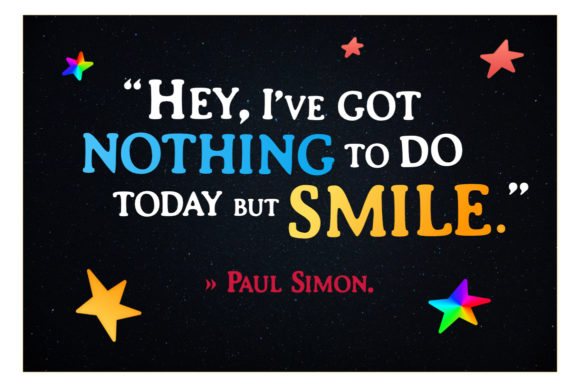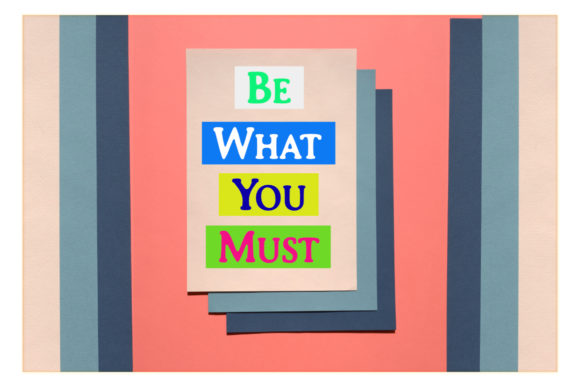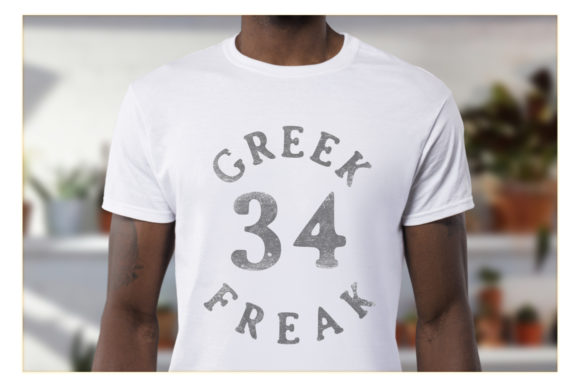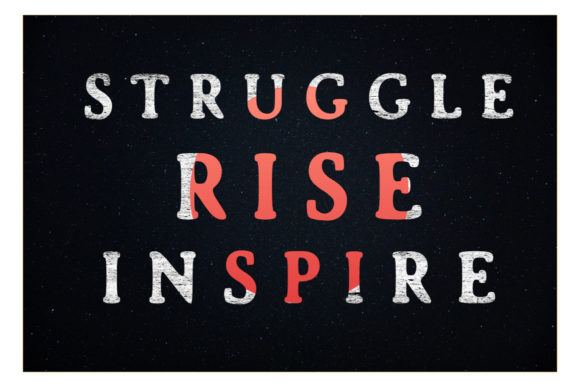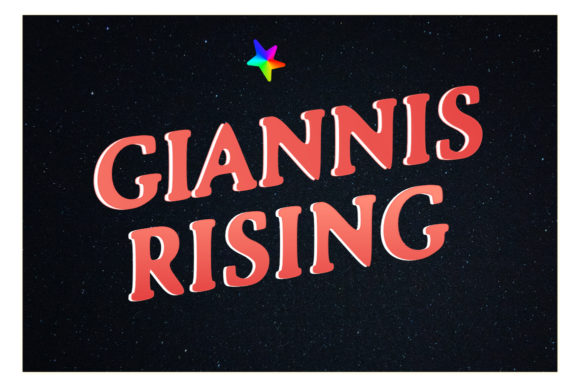
Introducing Giannis Rising Font: Elevate Your Designs with a Touch of Sophistication
In the world of typography, a font can make or break a design. It’s the foundation upon which creativity is built, and the right choice can elevate a project from ordinary to extraordinary. For designers and crafters looking to add a dash of elegance and versatility to their work, the Giannis Rising Font is an excellent choice. This all-caps, casual, and versatile serif font is designed to make a statement, and in this article, we’ll explore its features, benefits, and uses.
What is Giannis Rising Font?
The Giannis Rising Font is a thoughtfully crafted serif font that exudes a sense of sophistication and style. It comes in two sleek styles: regular and italic, providing users with flexibility and creative freedom. The font’s design is characterized by its clean lines, classic serifs, and a distinctive charm that sets it apart from more traditional fonts.
Key Features of Giannis Rising Font
- All-Caps Design: The Giannis Rising Font is an all-caps font, making it perfect for headings, titles, and any design element where you want to draw attention.
- Versatile Serif Font: Its serif design adds a touch of classic elegance, making it suitable for a wide range of projects, from traditional to modern.
- Casual and Versatile: Despite its elegant look, the font maintains a casual vibe, allowing it to be used in various contexts, from branding and advertising to posters and book covers.
- Two Styles: The font comes in two styles – regular and italic. This range allows designers to add depth and contrast to their work, enhancing visual appeal.
Uses of Giannis Rising Font
The versatility of the Giannis Rising Font makes it suitable for a multitude of design projects. Here are some of the key areas where this font truly shines:
- Branding: Create memorable brand identities with a font that stands out yet remains approachable.
- Advertising: Use the Giannis Rising Font to craft compelling ad copy that captures attention and leaves a lasting impression.
- Displays and Posters: Add a touch of sophistication to your display ads and posters, making them more engaging and effective.
- Logos: Design unique and captivating logos that set your brand apart from the competition.
- Movie Titles and Book Covers: Bring a cinematic or literary feel to your movie titles and book covers with a font that exudes class and creativity.
Why Choose Giannis Rising Font?
With so many fonts available, why choose Giannis Rising? The answer lies in its unique blend of elegance, versatility, and readability. Here are a few reasons why designers and crafters are gravitating towards this font:
- Unique Aesthetic: The Giannis Rising Font offers a distinctive look that can help your designs stand out in a crowded marketplace.
- High Readability: Despite its stylized serifs, the font maintains high readability, making it suitable for both digital and print media.
- Easy to Pair: Its classic design makes it easy to pair with a variety of fonts, allowing for creative flexibility in your designs.
The Giannis Rising Font is a powerful tool for designers and crafters looking to elevate their projects with a touch of sophistication and style. Its versatile design, combined with its range of uses, makes it an excellent addition to any design toolkit. Whether you’re working on branding, advertising, or creative projects, this font is sure to make a lasting impression. So, why settle for ordinary when you can make your designs rise with the Giannis Rising Font?